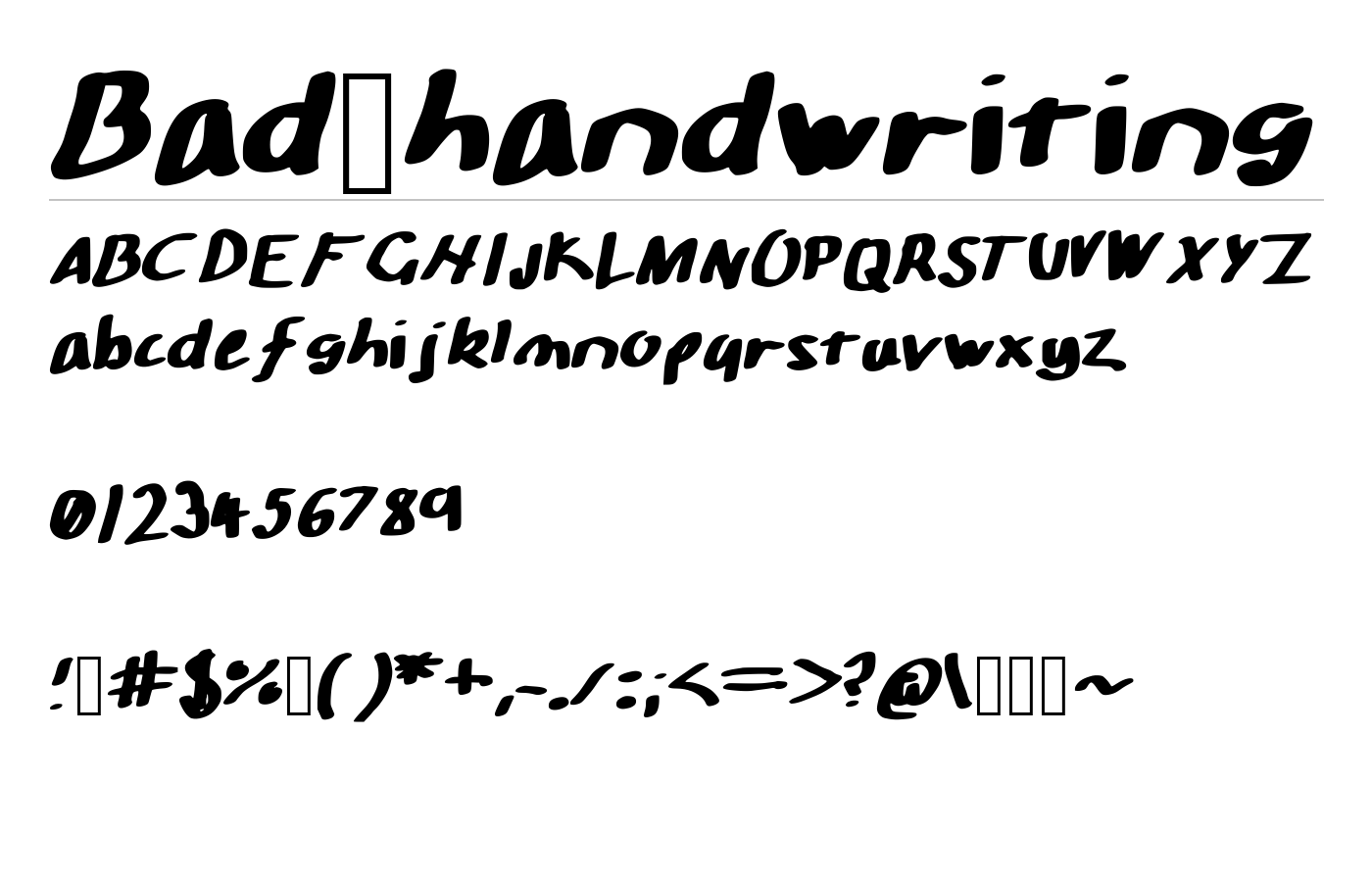
Bad_handwriting is a bold, playful script font that mimics casual, imperfect handwriting with thick strokes and rounded edges. Its lively, informal style suits creative and fun designs, making it ideal for invitations, posters, and branding that aims for a friendly, approachable vibe. The font’s irregular letterforms and strong personality bring energy and warmth, perfect for projects needing a personal, human touch.
Bad_handwriting Font
About Bad_handwriting Font